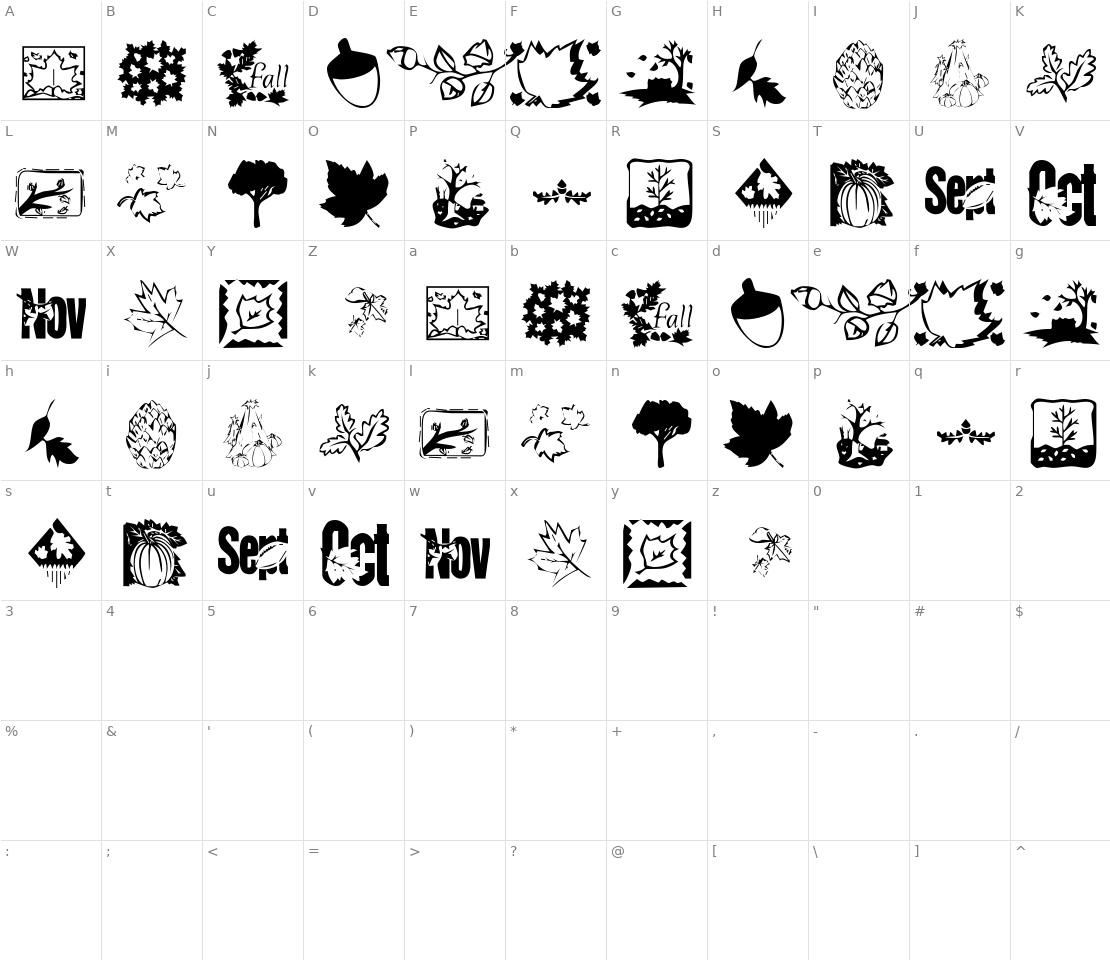
KR Fabulous Fall
by Kat's Fun Fonts
KR Fabulous Fall is a dingbat font from Kat's Fun Fonts filled with autumn-themed symbols: falling leaves, seasonal motifs, and nature illustrations. Each keystroke produces a small decorative graphic rather than a letter, making it useful for borders, spot illustrations, and seasonal print projects where you need quick, ready-made fall imagery without reaching for clip art.